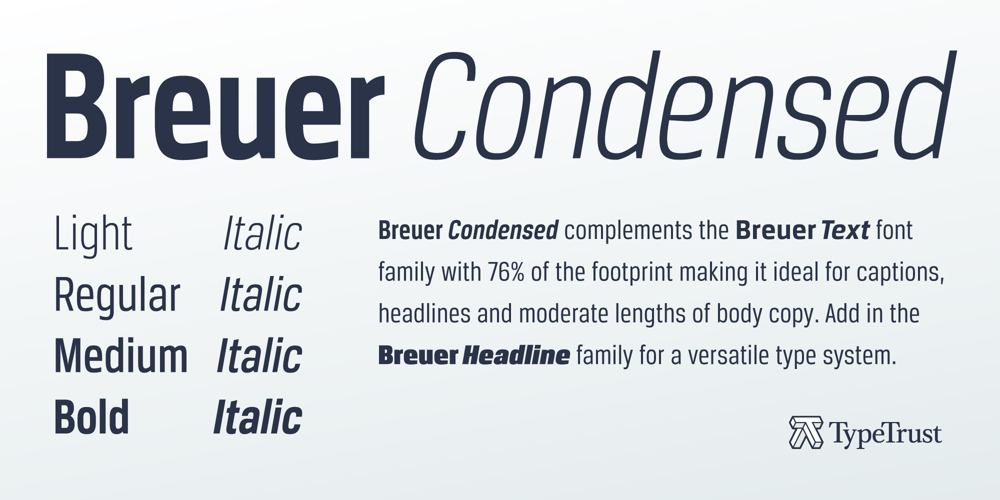
Breuer Condensed
Breuer Condensed font
Breuer Condensed Font Family was designed by Silas Dilworth and published by TypeTrust. Breuer Condensed contains 8 styles and family package options. Breuer Condensed is a mechanical sans ideal for captions and headline settings, and may also be suitable for moderate lengths of body copy with its comprehensive offering of OpenType features. The italics are optically adjusted obliques with a selection of augmented lowercase glyphs to provide a warmer read. The overall design ensures a distinct aura of technical precision in a personable tone. This family of eight fonts is designed to accompany the Breuer Text and Breuer Headline sets released in 2007. Breuer Condensed offers a 76% narrower footprint compared to Breuer Text and is fine-tuned to render typographic color equivalent to each sibling Text weight.